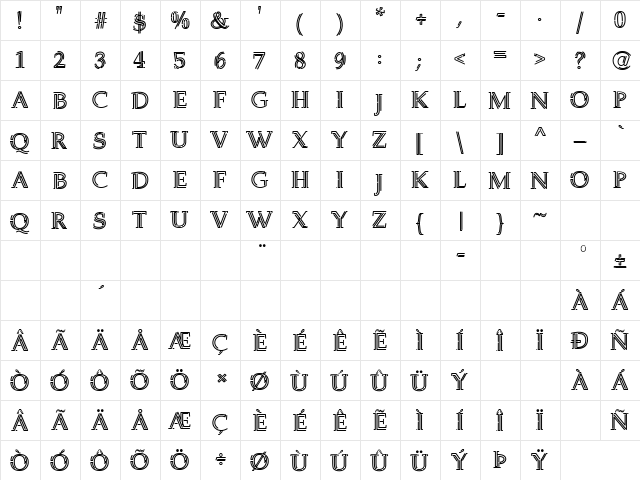
Welingtom Regular
| Designer | StringLabs |
Design Context for Welingtom Typeface
Welingtom takes a measured approach to typography — its balanced proportions and neutral character make it a reliable workhorse for both digital and print work.